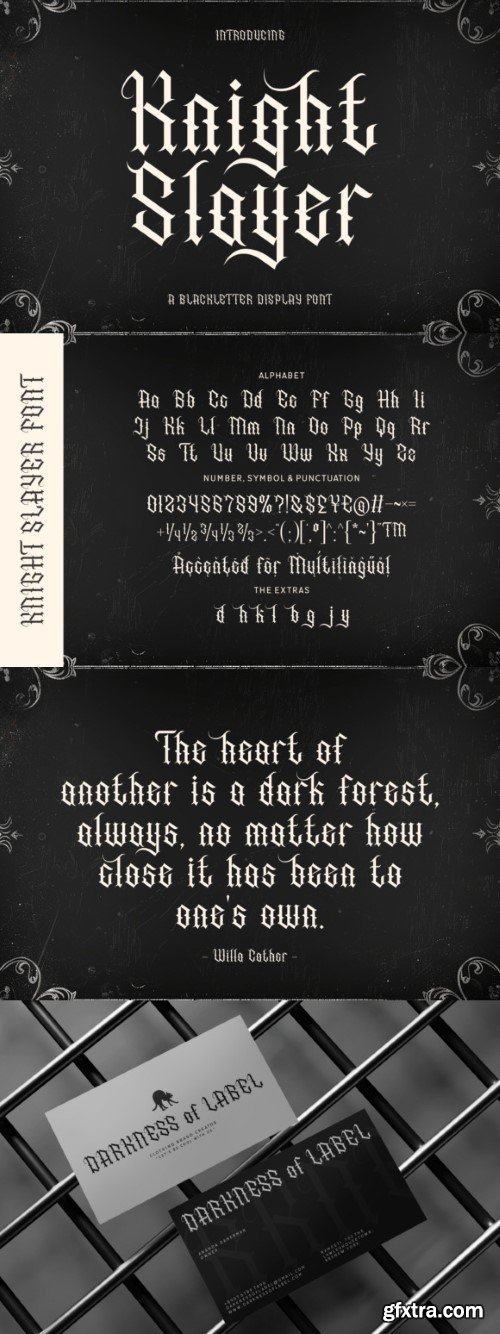
Knight Slayer Font
Knight Slayer is a blackletter display font that exudes power, tradition, and a sense of medieval drama. While inspired by medieval themes, It can also be used in modern contexts. Its bold blackletter style can add a dramatic, edgy touch to contemporary designs, from streetwear branding to music albums.